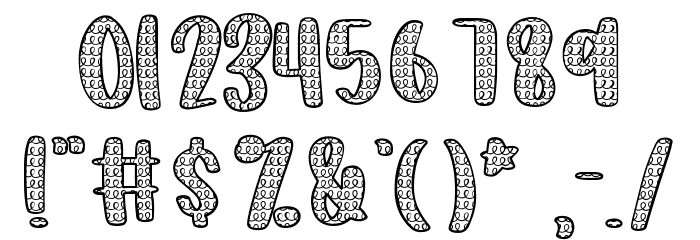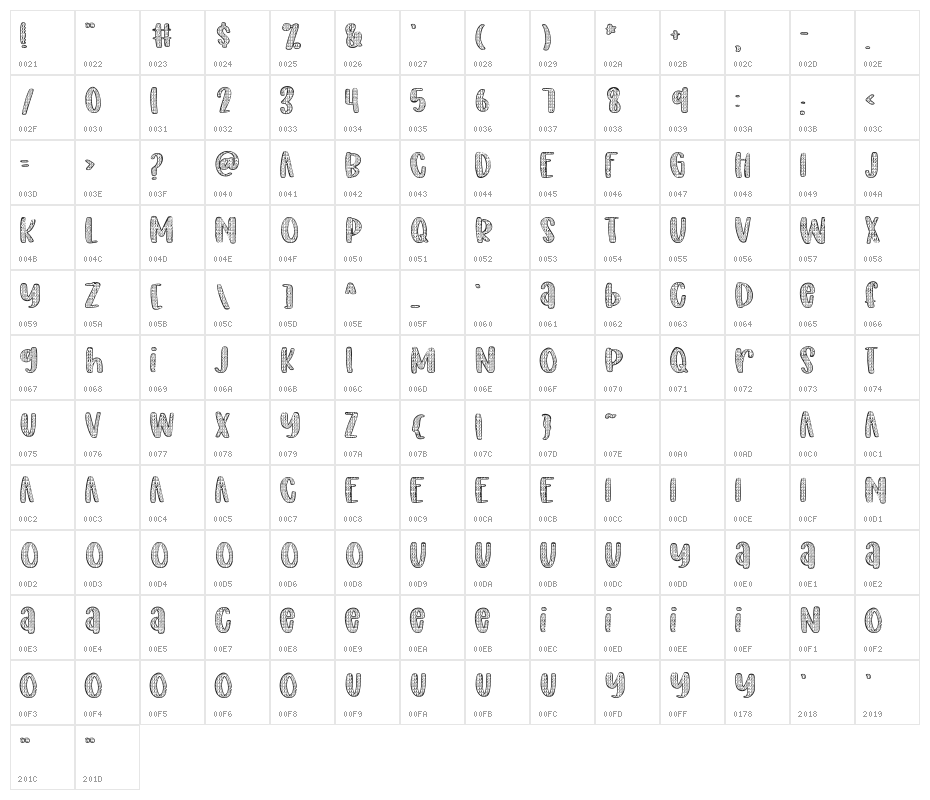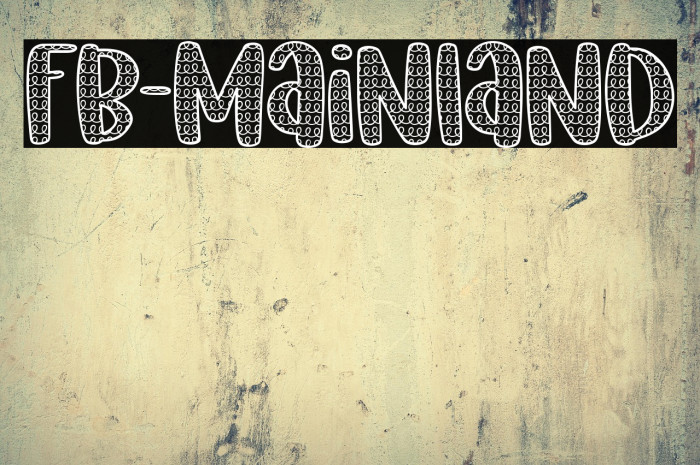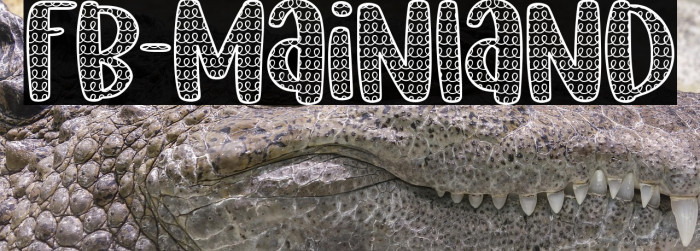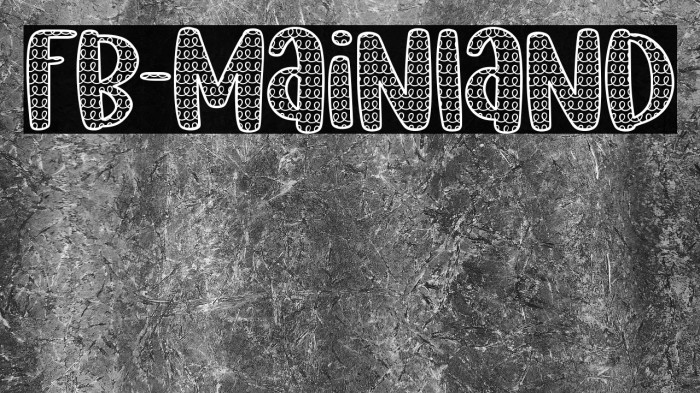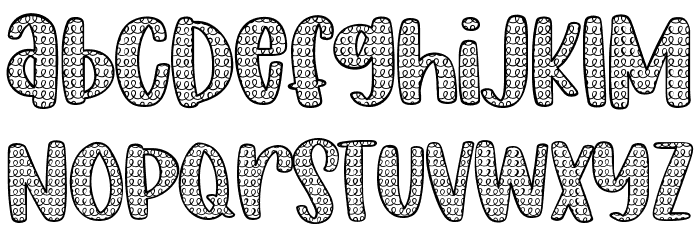
FB-Mainland Font
FB-Mainland Description
This font features a playful and decorative style with a unique pattern filling each character. The letters are bold and rounded, giving them a friendly and approachable appearance. The intricate design within each letter adds a layer of complexity and visual interest, making it ideal for creative and artistic projects. The font maintains a consistent weight throughout, ensuring readability despite its decorative nature. The characters are evenly spaced, providing a balanced and cohesive look. This font is perfect for projects that require a fun and engaging aesthetic.
| Overall Style | Playful, Decorative |
| Proposed Projects | Ideal for children's books, playful branding, posters, and creative invitations. |